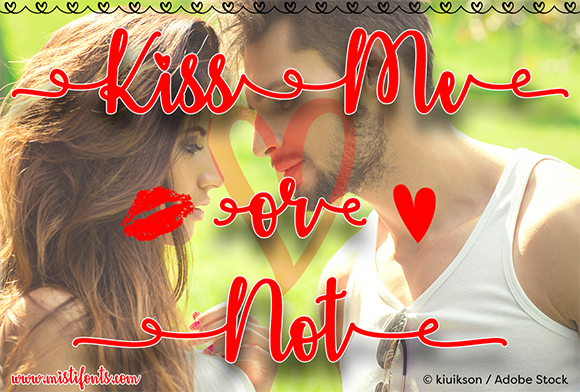
About Kiss Me or Not Font
Kiss Me or Not is a romantic calligraphy script that is perfect for your craft and design projects!
Special Symbols
Type * (asterisk) for the lips
Type (back slash) font the heart border (also connects between letters)
Type _ (underscore) for swash that connects letters Kiss_Me
Type | (vertical bar) for solid heart
Type ~ (tilde) for open heart
Type [] (brackets) for small swashes [or]
Type {} (curly braces) for medium swashes {Kiss Me}
Type () (parentheses) for big swashes (Not)